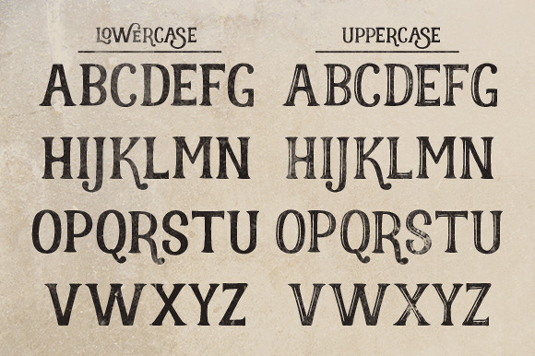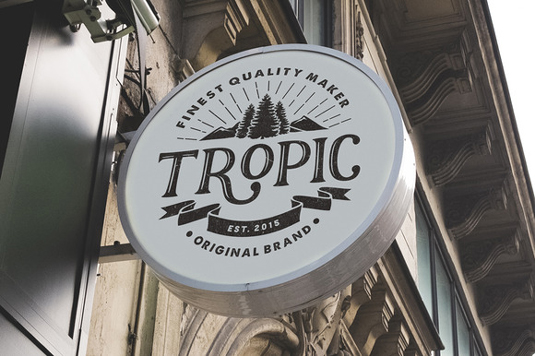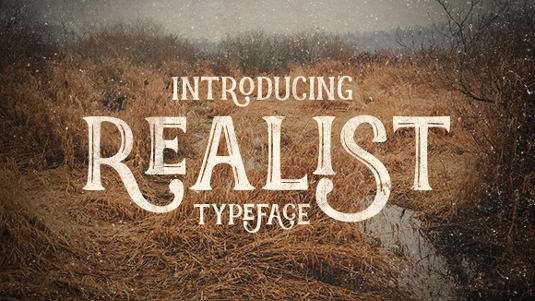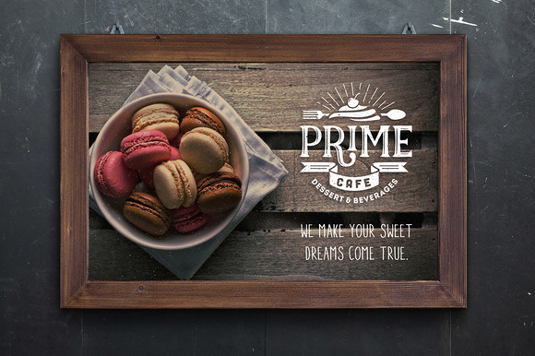
Font of the day: Realist
Every day we showcase the best fonts on the web. Today it's Realist from Graptail.
Realist from Graptail
Made by hand and inspired by classic posters, Realist is a display typeface with a strong vintage feel. Available in two variations, Realist is suitable for greeting cards, posters, logos, t-shirt designs and much more.